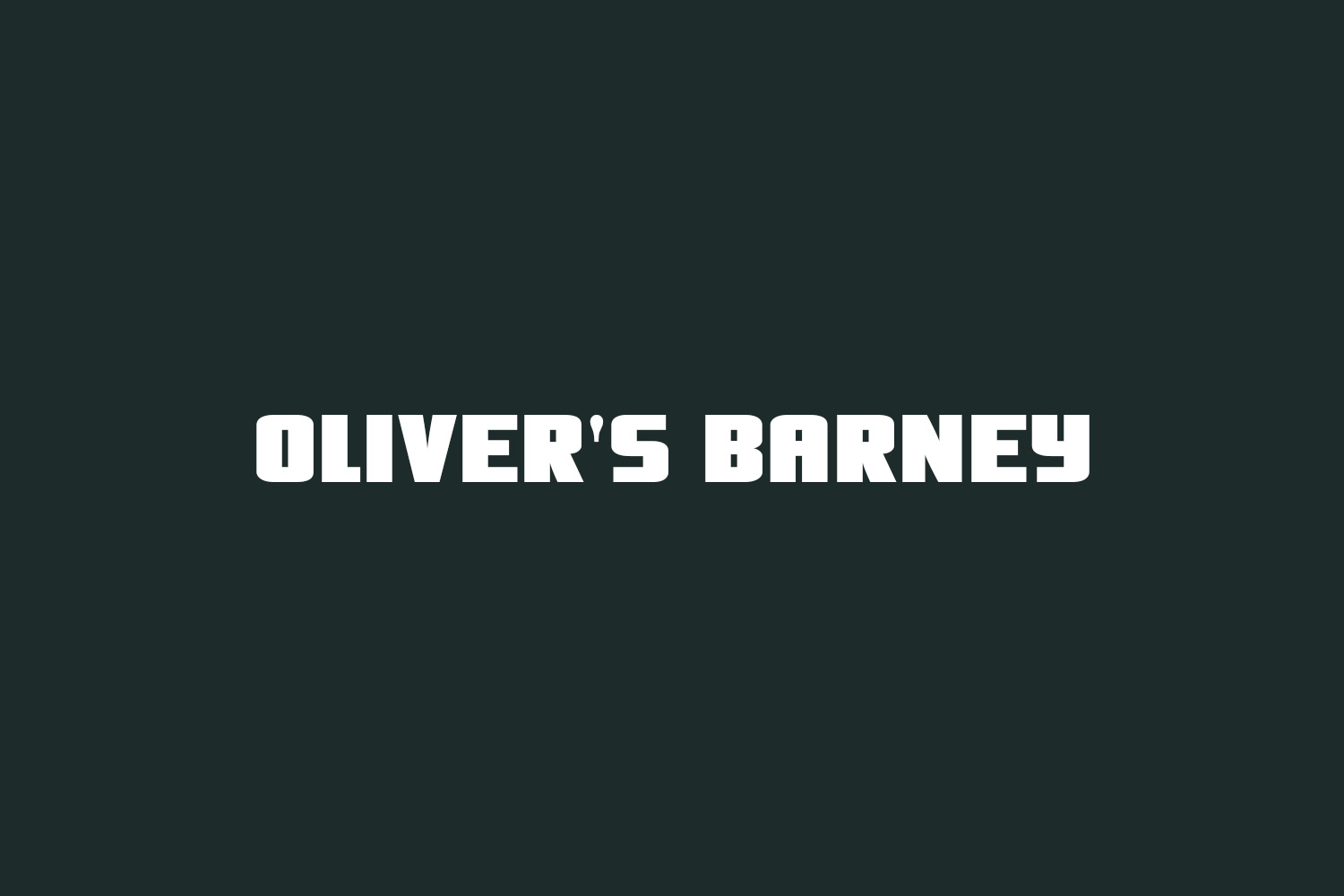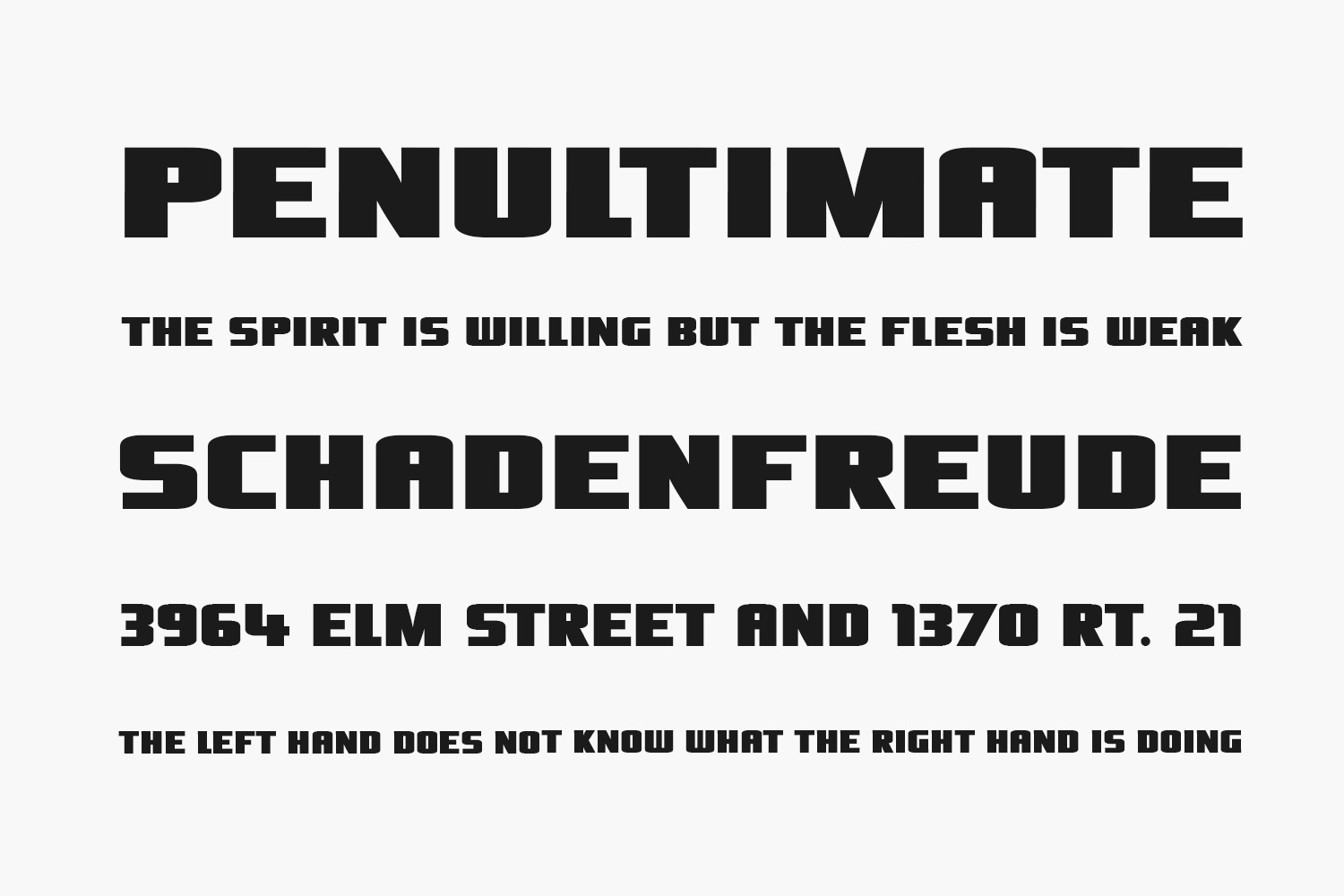
Oliver’s Barney Free Font is a gaspipe signage font of old lang syne. Oliver’s Barney Free Font was designed by Typodermic Fonts and is free for personal or commercial use. This allows you to install the font on a computer and use it to create posters, web graphics, eBooks, game graphics, t-shirts, videos, signs, logos, and more.